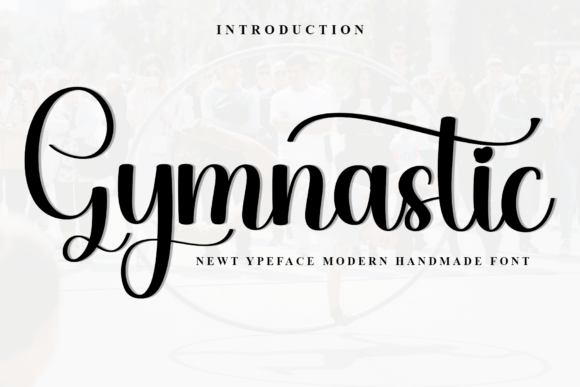
Giving Life to Your Designs: The Power of Gymnastic Font
Have you ever stared at a blank canvas, waiting for inspiration to strike? It’s a feeling we’ve all experienced at some point in our creative journey. But what if I told you that there’s a font that can bring your ideas to life, adding a touch of elegance and sophistication to your designs? Meet Gymnastic Font, a delicate and flowing handwritten font that’s designed to make your creative visions shine.
Gymnastic Font is more than just a pretty face – it’s a valuable tool for designers looking to add a personal touch to their work. With its beautiful and well-balanced characters, this font is perfect for a wide range of designs, from wedding invitations to branding materials. Whether you’re a seasoned pro or just starting out, Gymnastic Font is sure to become your go-to choice for adding a touch of whimsy and charm to your designs.
Gymnastic Font Key Features
- Font Family: Gymnastic Font is a unique, handwritten font family designed for various creative applications.
- Unique Characteristics: This font family features a distinctive, hand-drawn style with varying line widths, making it ideal for adding a personal touch to designs.
Gymnastic Font Review
I recently had the chance to work with the Gymnastic Font, and I must say it’s a unique addition to any design project. ✨ One thing I appreciate about this font is its playful and energetic vibe, perfect for capturing the attention of younger audiences. The font’s dynamic feel is reminiscent of a gymnast in motion, which I think is a great creative interpretation.
Another aspect I like about Gymnastic Font is its versatility. ✨ It’s suitable for both digital and print materials, making it a great choice for designers who work on various projects. The font’s high-resolution capabilities ensure that it looks great even on high-end devices.
- ⚠️ Limited legibility at smaller font sizes: While the font is great at larger sizes, its finer details can get lost at smaller sizes, making it harder to read.
- ⚠️ Not ideal for formal or professional projects: The font’s playful and dynamic feel might not be suitable for more serious or professional designs.
Overall, Gymnastic Font is a great choice for designers looking to add some personality to their projects. While it has some limitations, its unique character and versatility make it a great addition to any design toolkit.
Tips for Getting the Most Out of Gymnastic Font
To get the most out of Gymnastic Font, use it sparingly and in creative ways, such as:
1. Using it as a title font to add visual interest.
2. Pairing it with other fonts to create a unique combination.
3. Experimenting with different font sizes and styles to create a dynamic look.
Common Use Cases for Gymnastic Font
Gymnastic Font is commonly used in:
1. Sports branding and marketing materials.
2. Fitness and wellness websites and social media.
3. Creative and artistic